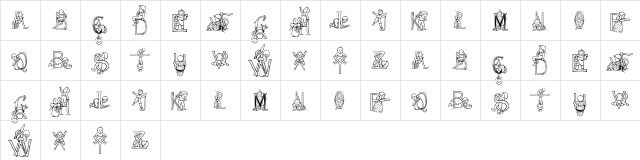
HFF Kids Stuff Regular
Design Context for HFF Kids Stuff Typeface
HFF Kids Stuff trades formality for fun, with bouncy, characterful letterforms that bring warmth and energy to any project.
Great for children's books, toy packaging, family event branding, and casual consumer-facing design.
Font Pairing: Pairs well with a rounded or humanist sans for body copy, maintaining the friendly tone without relying on HFF Kids Stuff to carry extended reading.
Pro Tip: Avoid using HFF Kids Stuff for long passages of text — it works best for headlines, labels, and short calls to action.